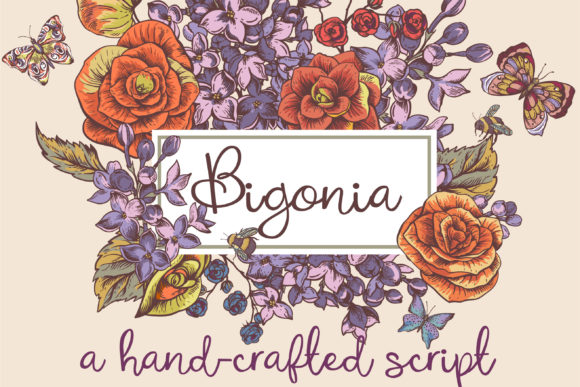
Discover the Elegance of Bigonia Font: Elevate Your Designs with Delicate Handwritten Style
In the world of typography, fonts play a crucial role in conveying messages, expressing emotions, and creating visual identities. For designers, crafters, and creative enthusiasts, finding the right font can be a game-changer. If you’re on the hunt for a font that exudes elegance, sophistication, and a touch of whimsy, look no further than Bigonia Font. This delicate and round lettered handwritten font is a versatile gem that can elevate any design project, regardless of the topic or theme.
The Characteristics of Bigonia Font
Bigonia Font is a beautiful example of a handwritten font that boasts a unique set of characteristics. Its delicate and rounded letterforms are carefully crafted to convey a sense of elegance and refinement. The font’s gentle curves and soft edges create a soothing visual experience, making it perfect for designs that require a touch of sophistication.
One of the standout features of Bigonia Font is its versatility. This font can be used across a wide range of design projects, from wedding invitations and branding materials to social media graphics and digital art. Whether you’re creating a whimsical illustration or a professional marketing campaign, Bigonia Font is sure to add a touch of class and poise to your work.
The Benefits of Using Bigonia Font
So, what makes Bigonia Font an incredible asset to your font library? Here are just a few benefits of using this beautiful font:
- Elegance and Sophistication: Bigonia Font’s delicate and rounded letterforms evoke a sense of refinement and luxury, making it perfect for high-end branding and design projects.
- Versatility: This font can be used across a wide range of design projects, from digital art to print materials, and everything in between.
- Emotional Connection: Bigonia Font’s whimsical and handwritten style creates an emotional connection with the viewer, making it perfect for designs that require a personal touch.
- Easy to Read: Despite its delicate nature, Bigonia Font is surprisingly easy to read, making it perfect for body text and longer design projects.
How to Use Bigonia Font in Your Designs
Now that you’re familiar with the benefits and characteristics of Bigonia Font, let’s explore some creative ways to use this font in your designs:
- Wedding Invitations: Bigonia Font’s elegant and refined style makes it perfect for wedding invitations, save-the-dates, and other wedding-related design projects.
- Branding and Packaging: Use Bigonia Font to add a touch of sophistication to your branding materials, packaging, and product labels.
- Digital Art: Bigonia Font’s whimsical style makes it perfect for digital art projects, such as illustrations, animations, and graphics.
- Social Media Graphics: Use Bigonia Font to create eye-catching social media graphics, such as quote graphics, promotional graphics, and more.
Tips and Tricks for Working with Bigonia Font
To get the most out of Bigonia Font, here are some tips and tricks to keep in mind:
- Pair with Bold Fonts: Pair Bigonia Font with bold fonts to create visual contrast and add depth to your designs.
- Experiment with Colors: Bigonia Font looks stunning in a range of colors, from soft pastels to rich jewel tones. Experiment with different colors to find the perfect fit for your design.
- Use for Headings and Titles: Bigonia Font’s elegant style makes it perfect for headings and titles. Use it to add a touch of sophistication to your design.
In conclusion, Bigonia Font is a delicate and round lettered handwritten font that is sure to elevate any design project. Its elegant and refined style, versatility, and emotional connection make it an incredible asset to your font library. Whether you’re a designer, crafter, or creative enthusiast, Bigonia Font is a must-have font that will take your designs to the next level.